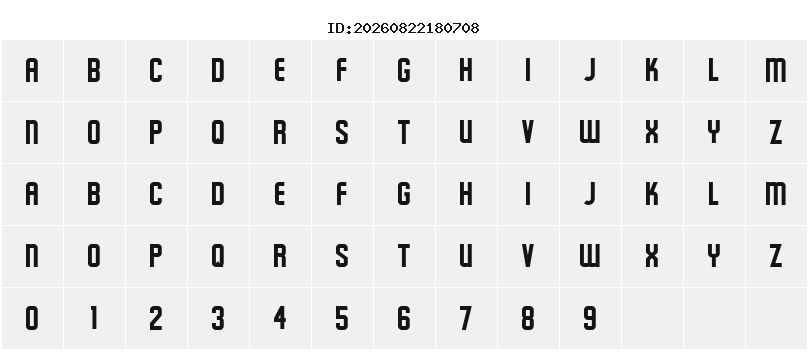
Schluber Preview
• Font Name: Schluber
• Full Font Name: Schluber
• Designer: Haydster
• Manufacturer: Haydster
About Schluber.ttf
Schluber.ttf is a modern, elegant sans-serif font designed for ultimate readability and visual harmony. Perfect for branding, headlines, web design, and print materials.